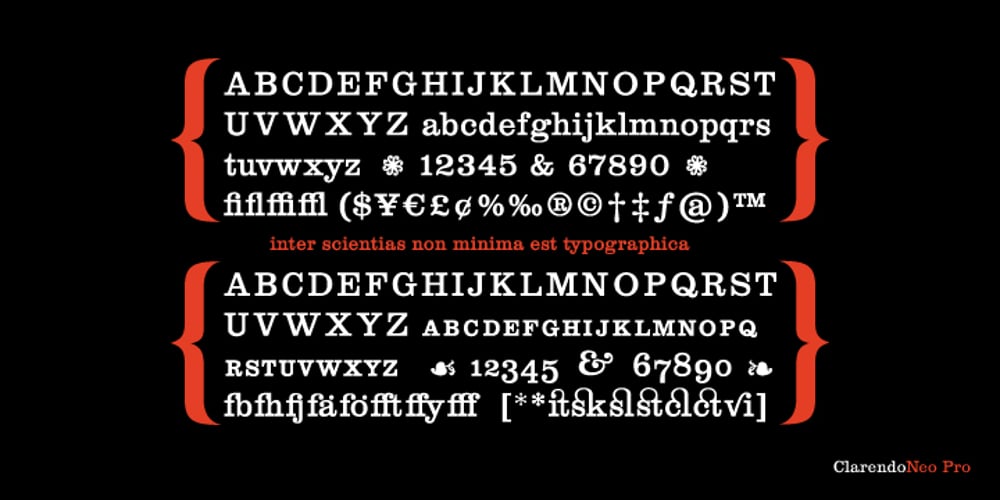
ClarendoNeo Font Family was designed by Björn Altmann and published by URW Type Foundry. ClarendoNeo contains 1 styles and family package options. Why do we need a new Clarendon? German designer Björn Altmann studied all existing versions of Clarendon and their sources and found that these Clarendons, originally designed for text sizes, do not satisfy today’s typographic needs, such as banner ads, city light posters, blow-ups and etc. Hence, we do need a ClarendoNeo! A full story about ClarendoNeo and the historical development of the Clarendon type can be found in the pdf brochure from Björn Altmann. ClarendoNeo comes with a full character set of appr. 900 glyphs covering Latin West and East, Cyrillic, small caps, old style figures as well as a large selection of ligatures, fractions, swashes, and ornaments.